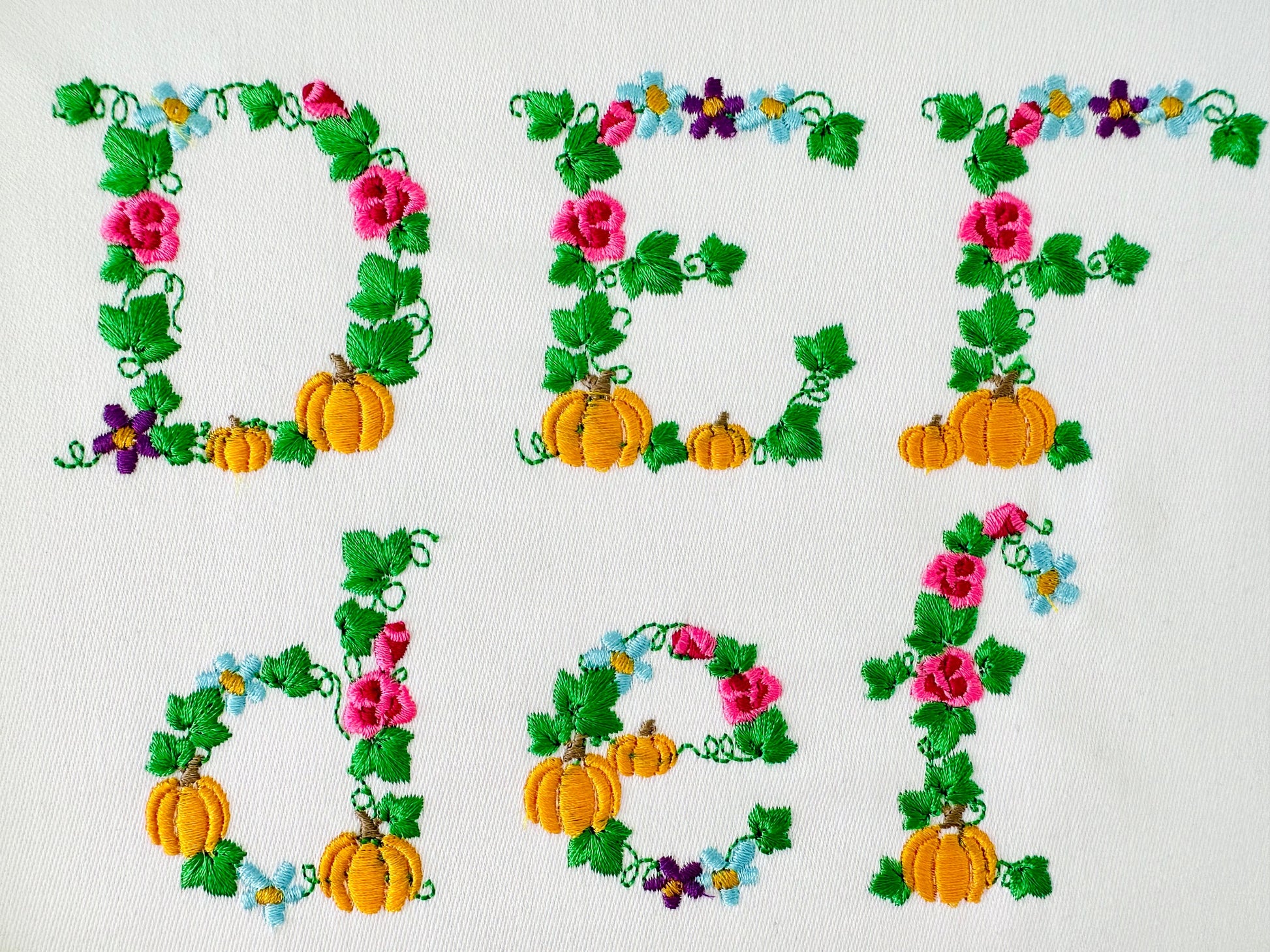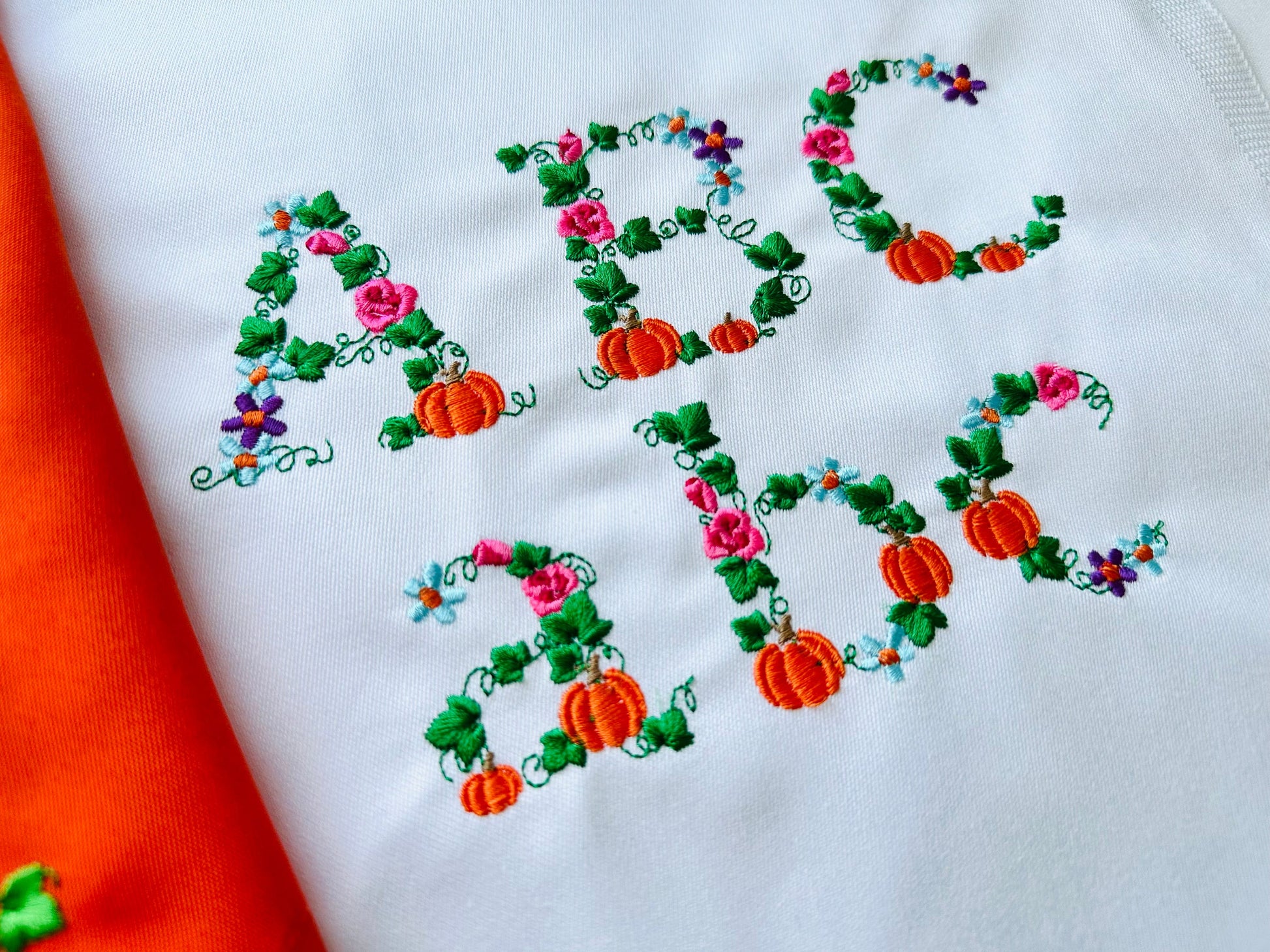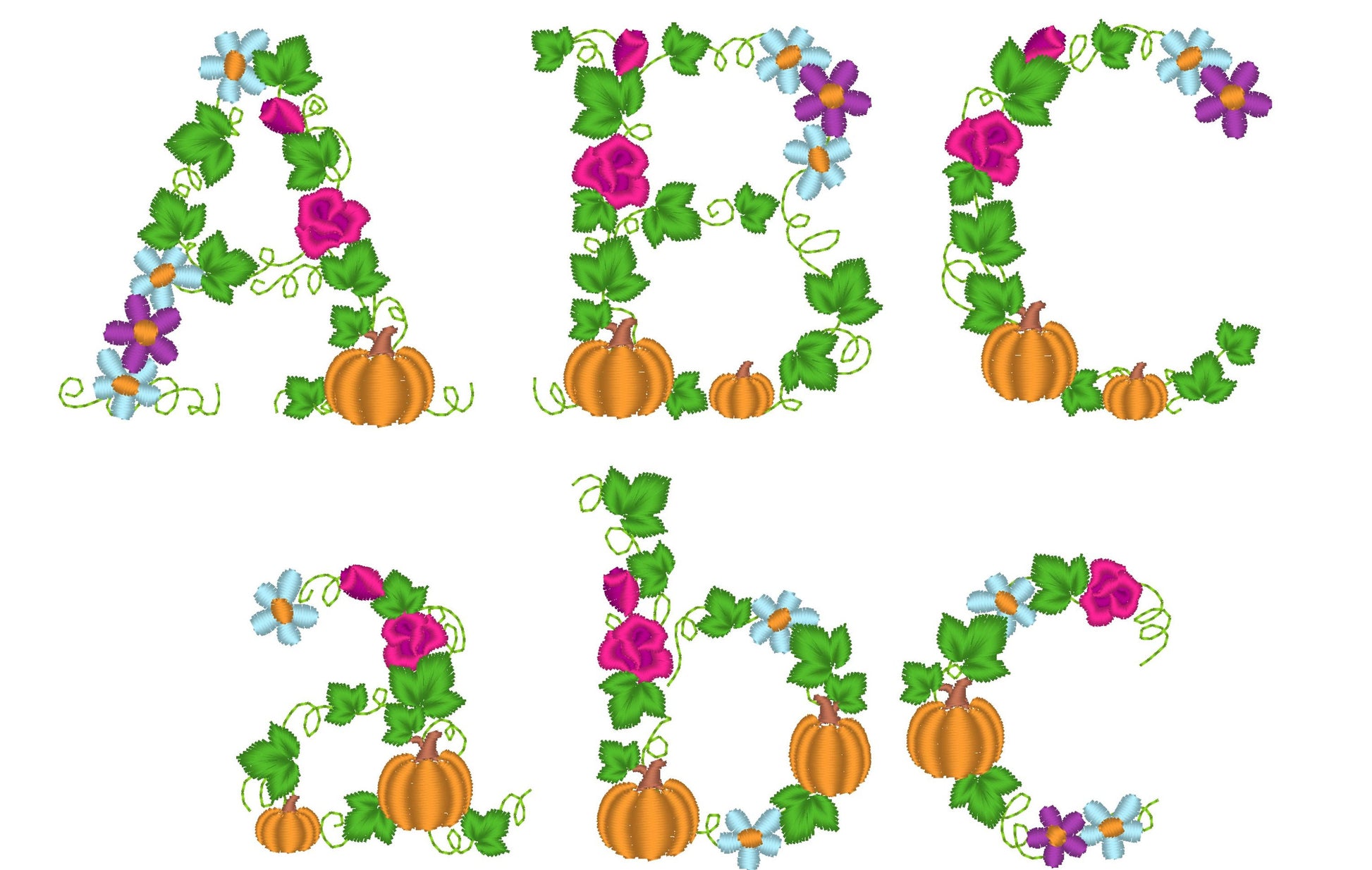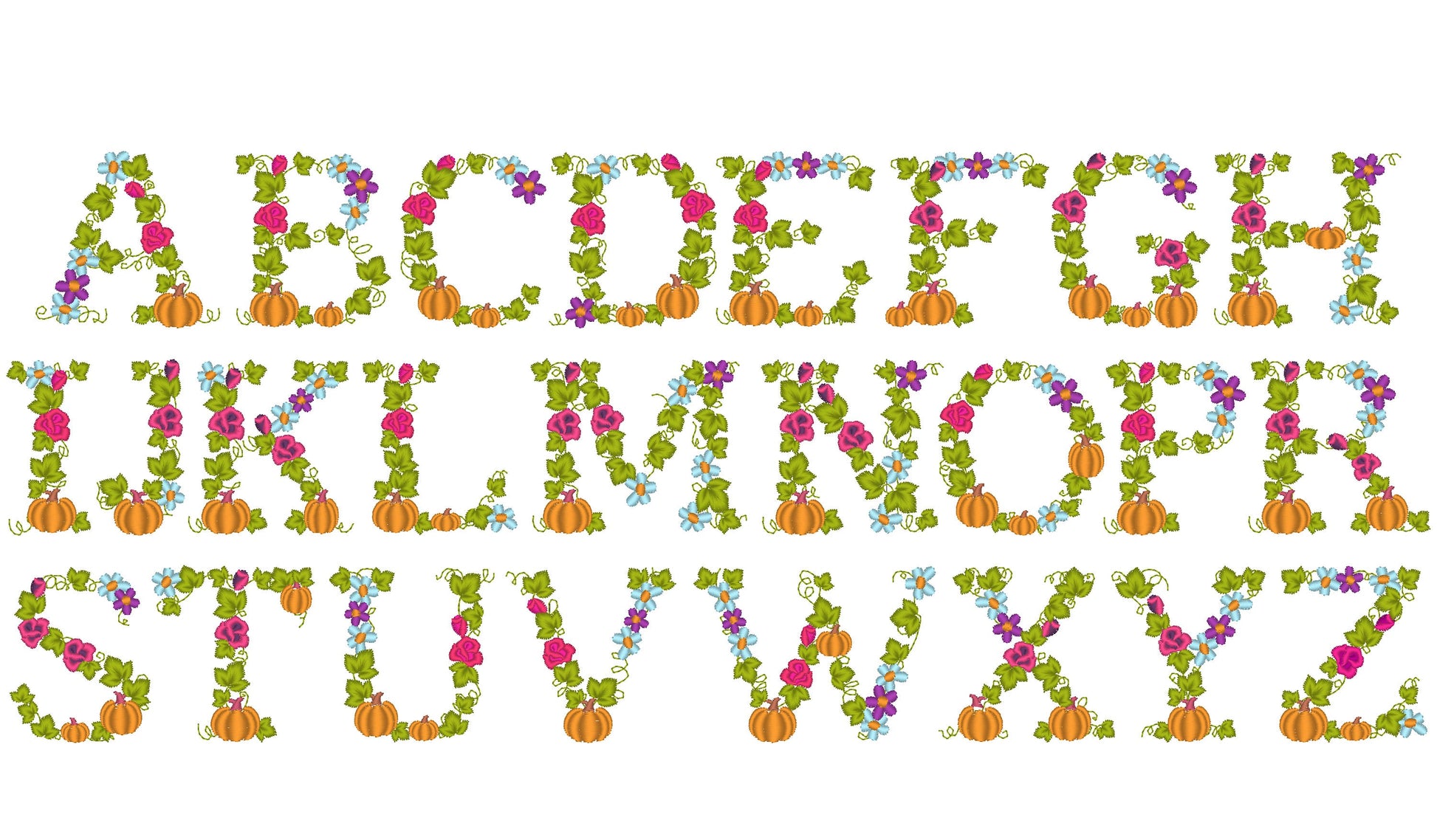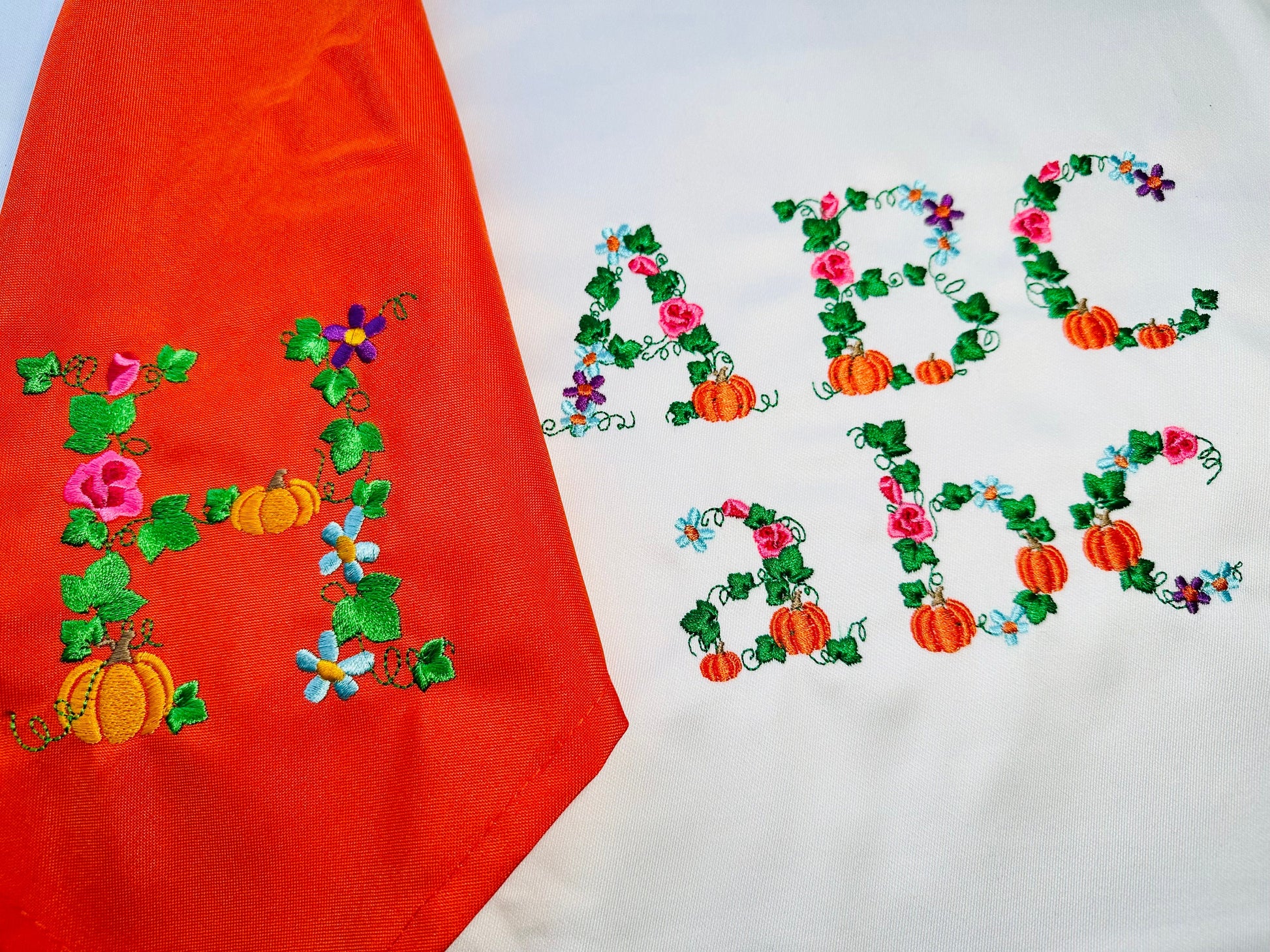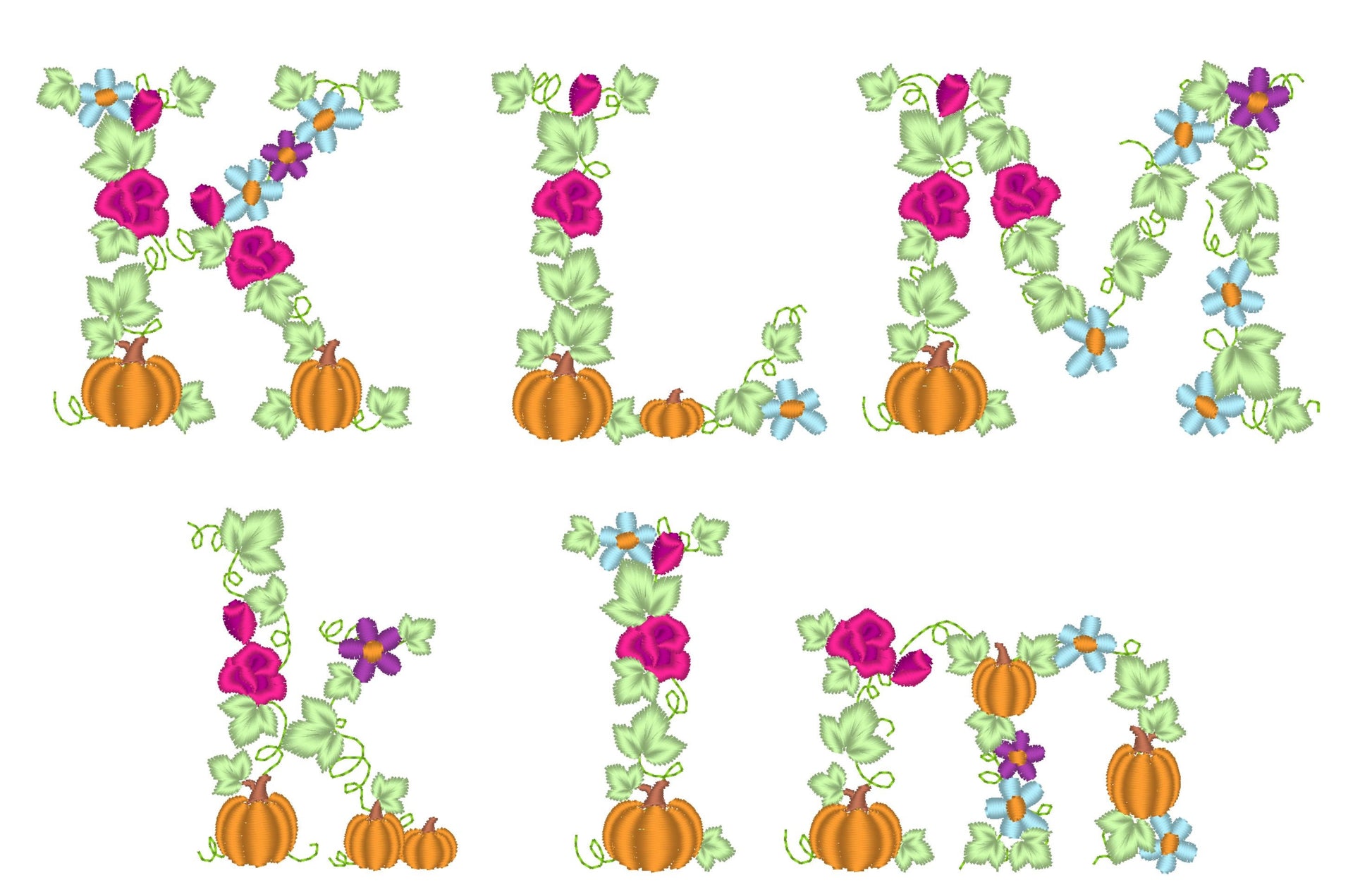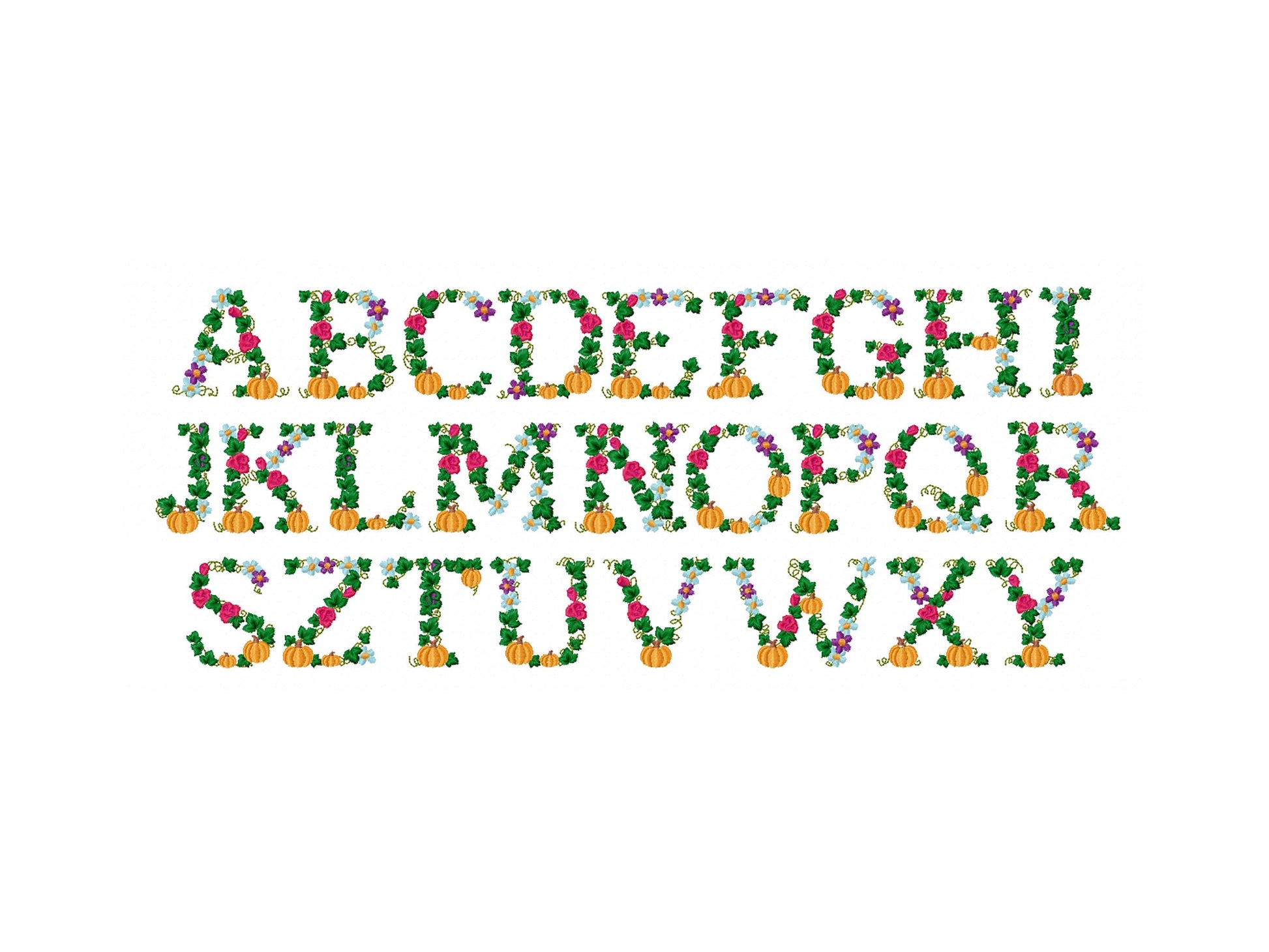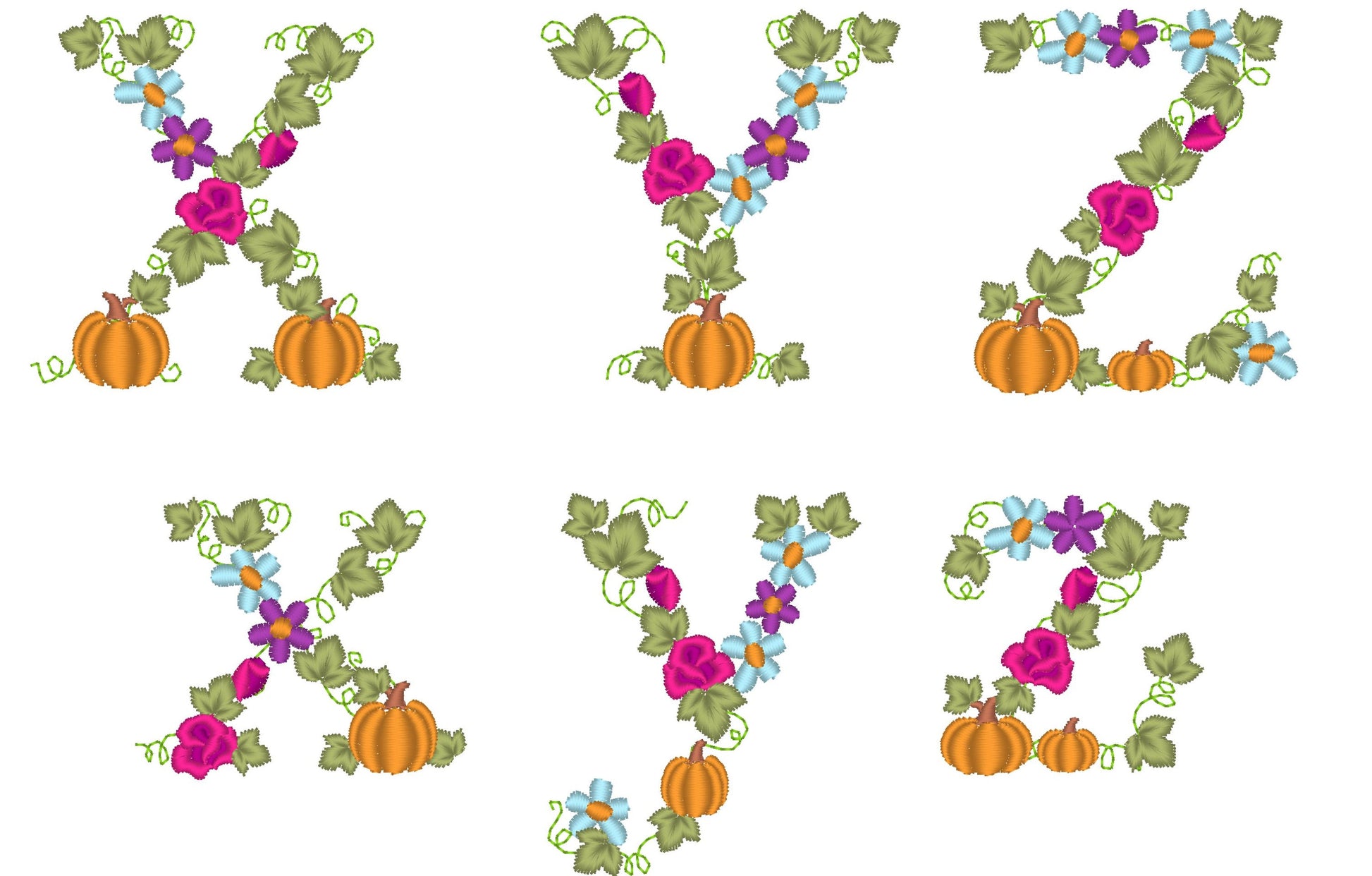
Fall Thanksgiving Pumpkin Floral Font
Or click to open the linkA fall floral font decorated with little pumpkins, flowers and ivy leaves. Lovely for Thanksgiving towels, autumn shirts, pillows and names.
Uppercase and lowercase letters in four sizes: 2, 2.5, 3 and 3.5 inches.
- Pumpkin floral fall font
- Uppercase and lowercase letters
- 4 sizes, 2 to 3.5 in